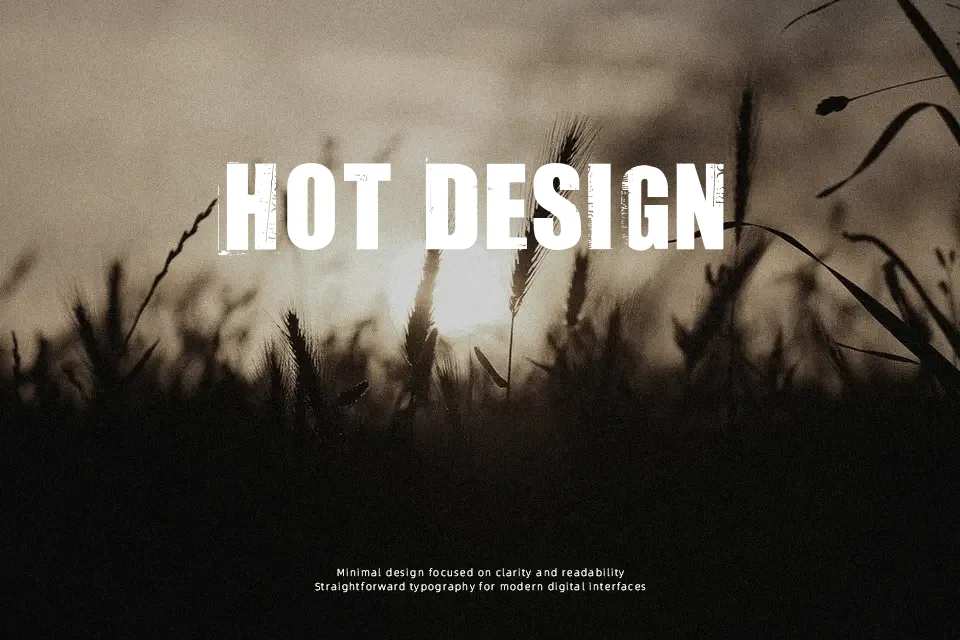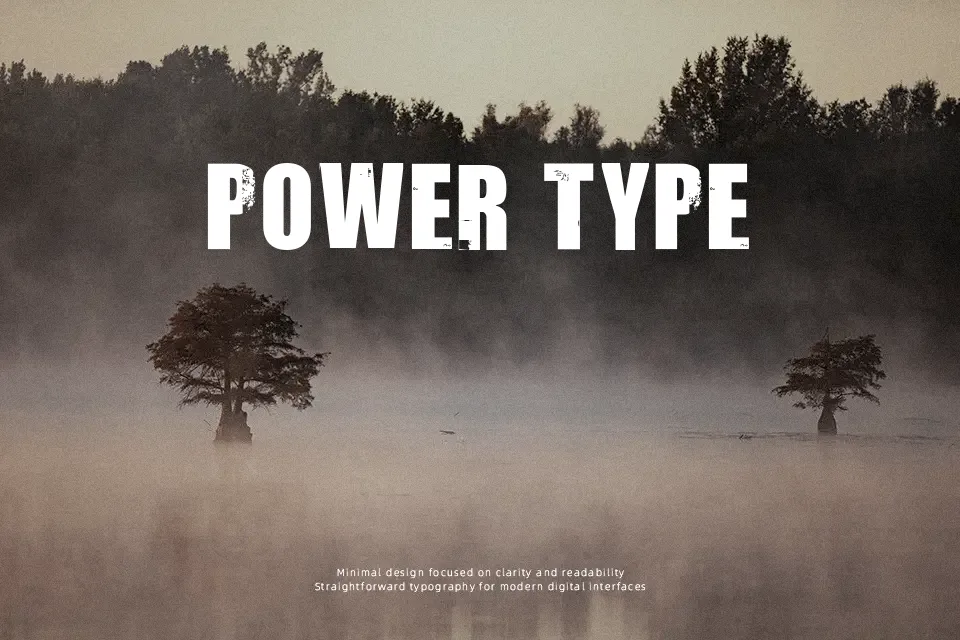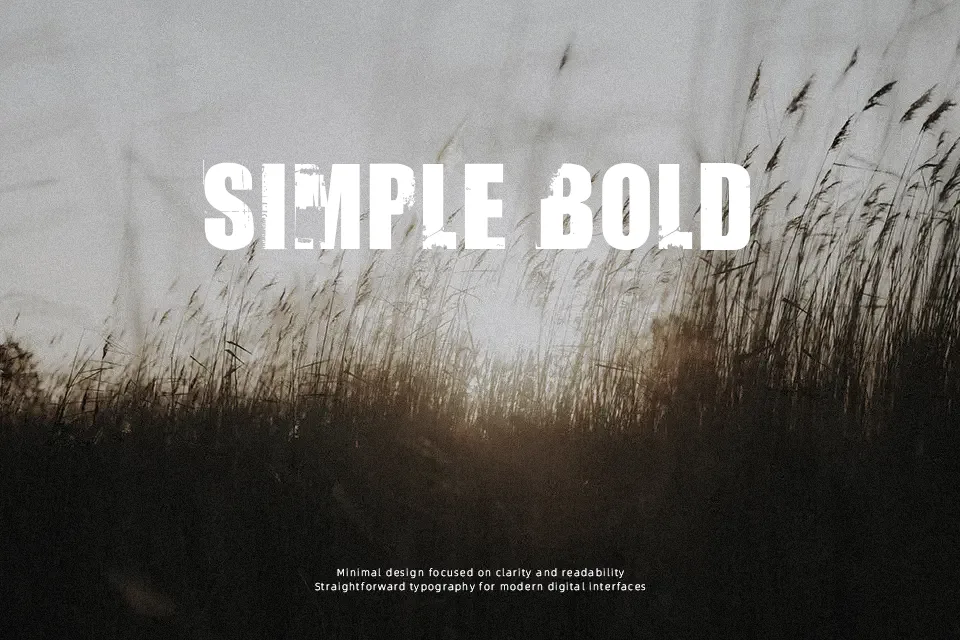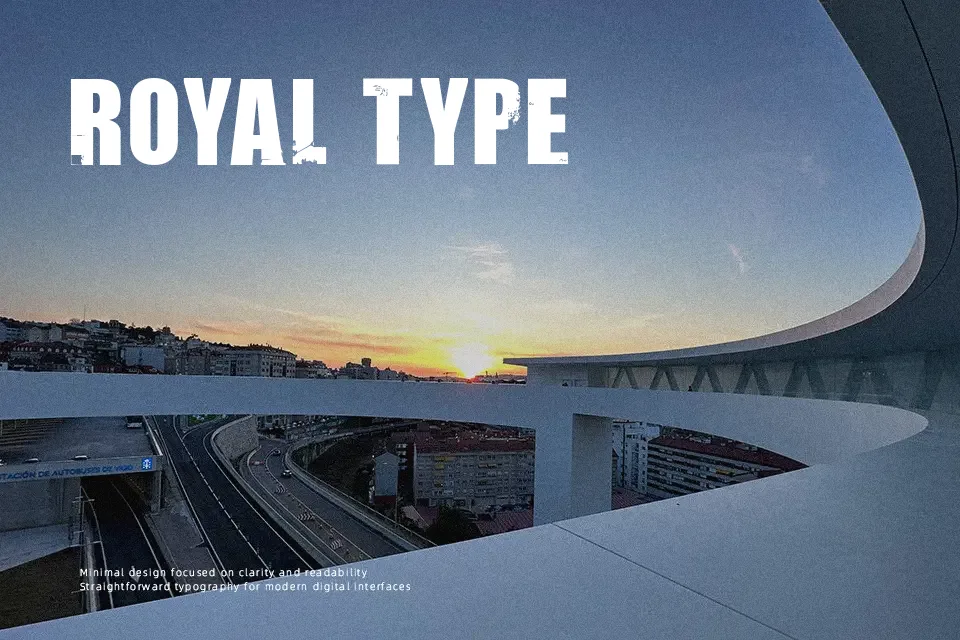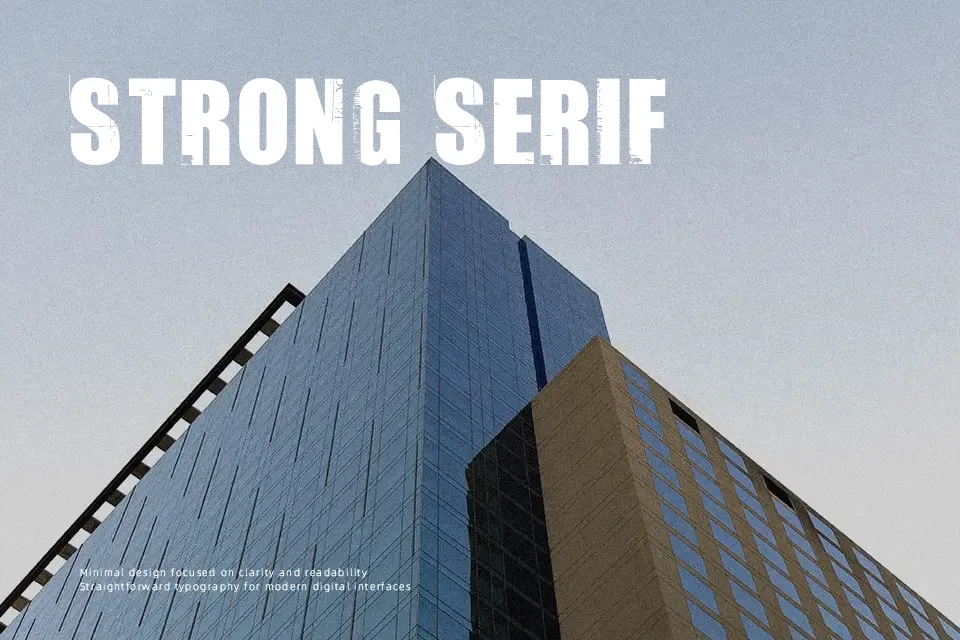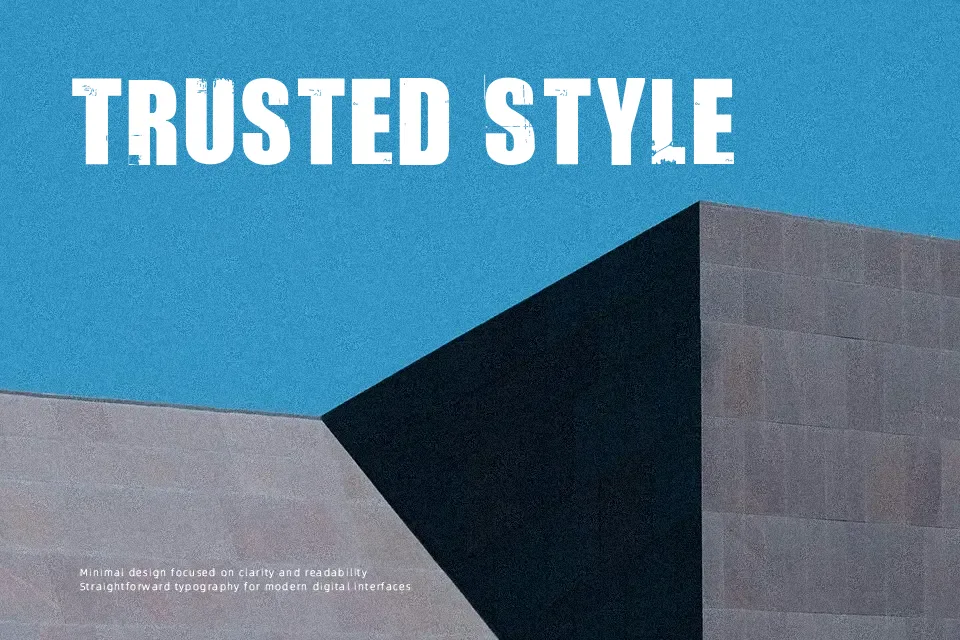
Uptown Font
Visual-first in its execution, Uptown Font features heavy, condensed letterforms marked by eroded textures and sharp interior cuts. The uppercase glyphs command solid presence through uniform vertical weights and tight character spacing, while distressed edges lend an authentic industrial finish. Distinctive angular counters establish an aggressive visual rhythm across display settings, though these same heavy, textured forms become difficult to decipher in extended paragraphs. At larger display scales, the design maintains reliable legibility across short titles, whereas compact counters and eroded silhouettes degrade in body copy. It excels primarily when deployed for high-impact streetwear graphics, record sleeves, and gritty festival promotions.
Best For: streetwear apparel graphics, heavy metal album sleeves, gritty event posters, underground merchandise branding
Not Ideal For: continuous reading, mobile user interfaces, legal documentation, compact data tables